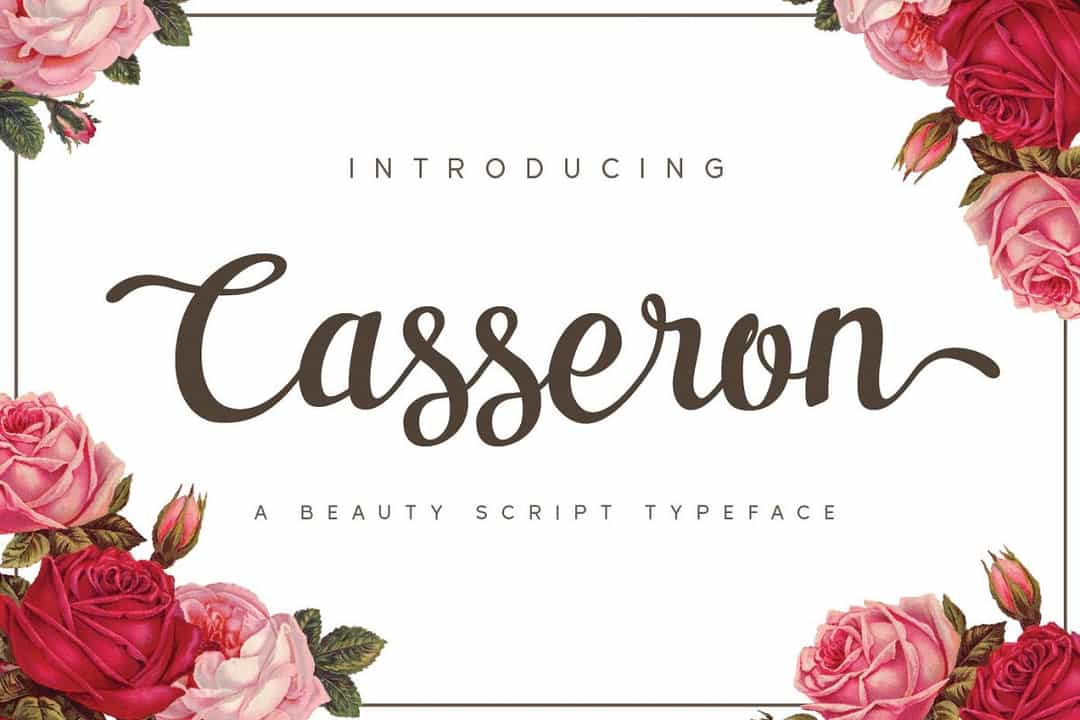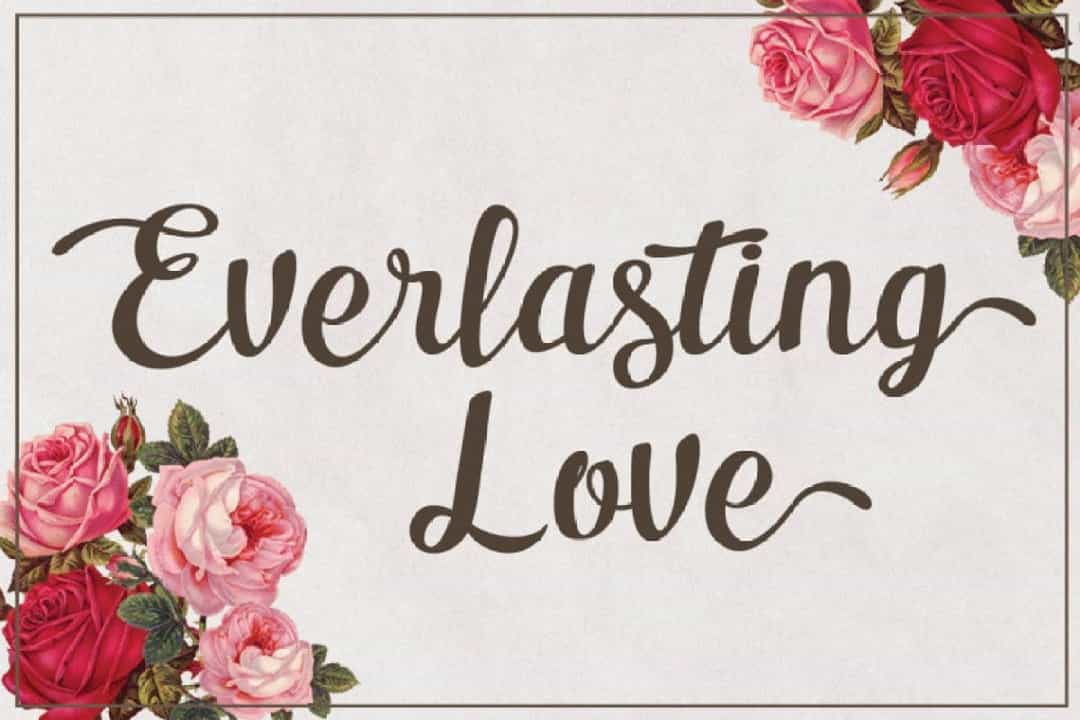
Casseron is a sophisticated font of script type with cute ligatures for each character and connection, that can be applied for branding, logos, wedding invitations, social media posts, ads, packaging and products, labels, photographs, watermarks, invitations, stationery, anything that needs handwriting; uppercase, lowercase, numbers, punctuations and accented letters are present in the character set.